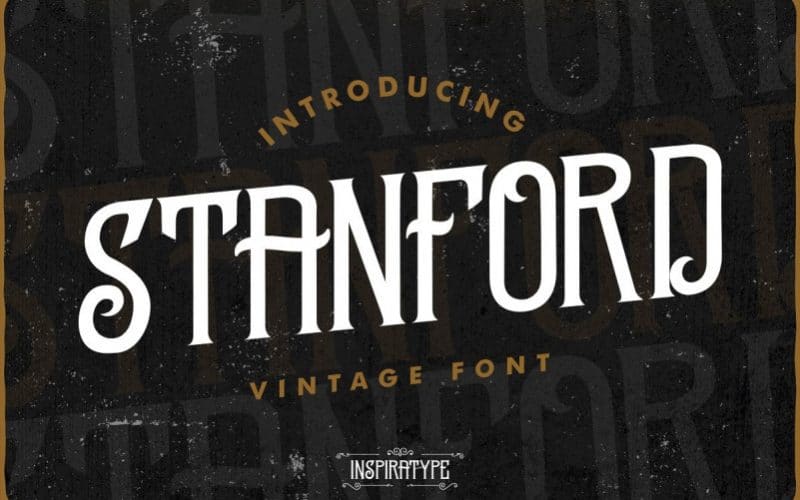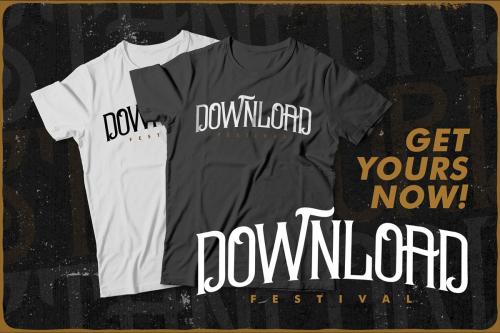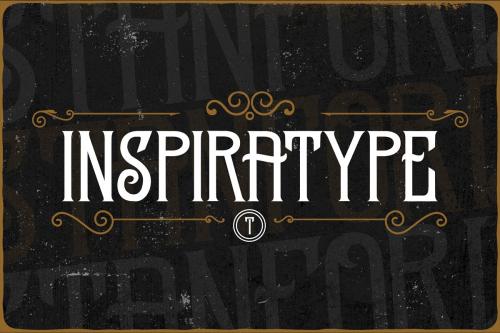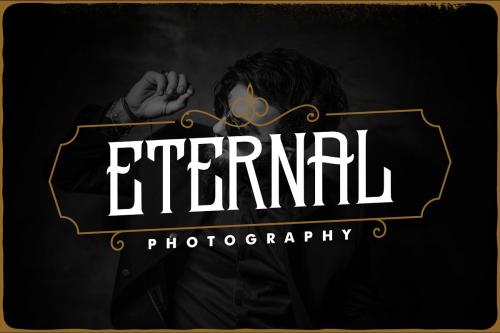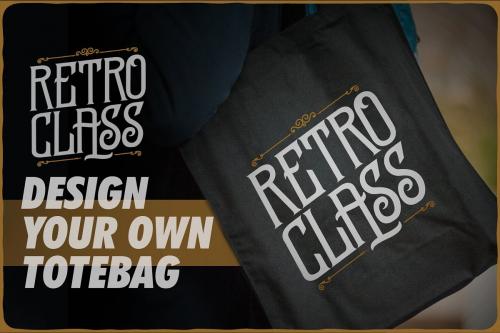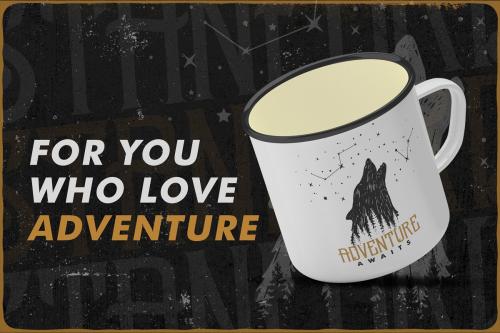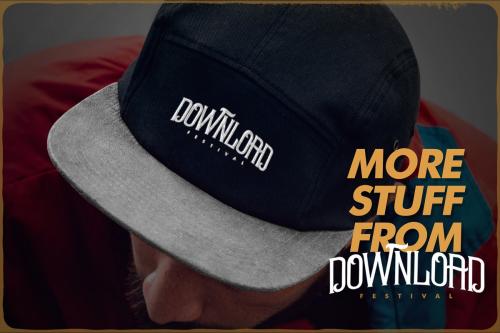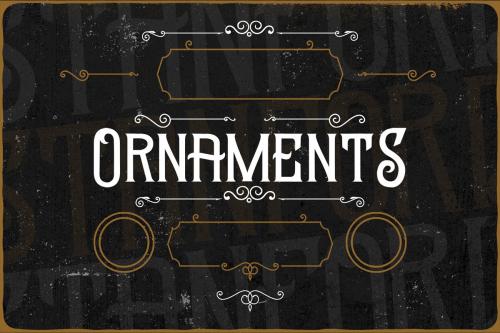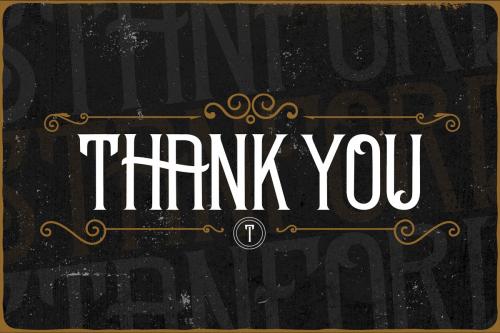
“Stanford Display Font” is a font display that is made by hand, inspired by classic posters.
Comes with uppercase, lowercase, numerals, punctuations and so many variations on each character include OpenType alternates, common ligatures and also additional swash to let you customize your designs. Perfect to use for Logotype, Letterhead, Poster, Apparel Design, Label and etc.
- Designer: Inspiratype